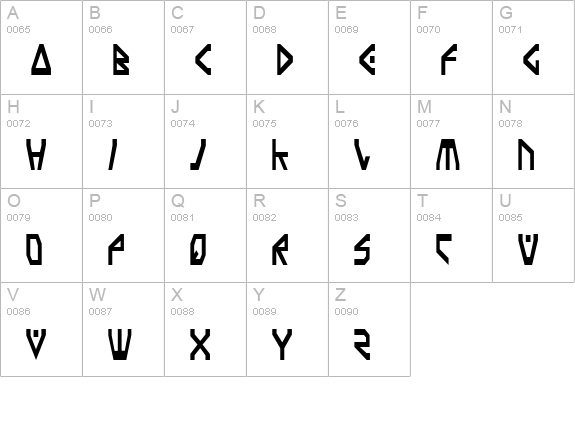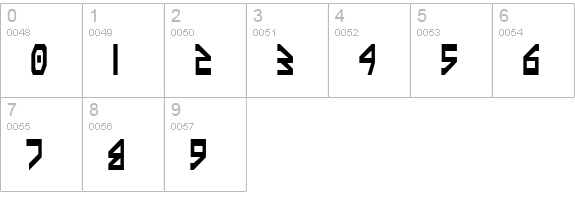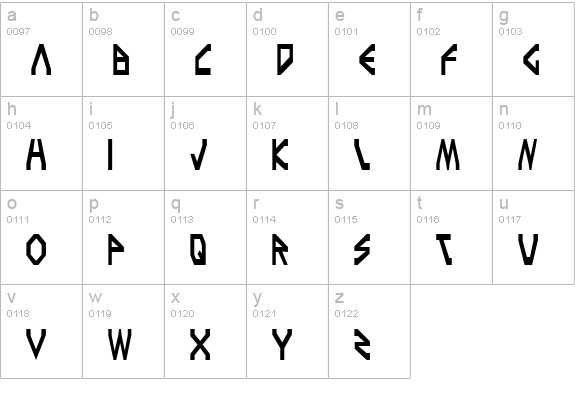
Terra Firma Condensed is a distinctive, condensed-width variant in the Terra typeface family \xE2\x80\x94 well suited to design and typography projects.
Introducing Terra Firma Condensed, a stunning display font that exudes elegance and sophistication. With its sleek and slim letterforms, this font effortlessly captures attention and adds a touch of modernity to any design project. Terra Firma Condensed is the perfect choice for those seeking a versatile typeface that can be used across a wide range of applications. Whether it's for branding, packaging, headlines, or editorial designs, this font will elevate your creations to new heights. What sets Terra Firma Condensed apart is not just its visual appeal, but also its accessibility. This font is freely available to download at FontsMarket.com, making it easily accessible to designers, enthusiasts, and anyone looking to add a touch of refinement to their designs. With its generous character set, Terra Firma Condensed offers a wide variety of uppercase and lowercase letters, numerals, punctuation marks, and special characters. Its clean and well-defined lines ensure legibility even at small sizes, ensuring that your message is conveyed with clarity and precision. Whether you're aiming for a minimalist and contemporary look or a bold and impactful design, Terra Firma Condensed has got you covered. Its versatility and timeless appeal make it a go-to font for designers of all levels of expertise. So why wait? Download Terra Firma Condensed for free at FontsMarket.com today and unlock the potential to create stunning and captivating designs that leave a lasting impression. Let this font be your partner in expressing your creativity and taking your projects to new heights.